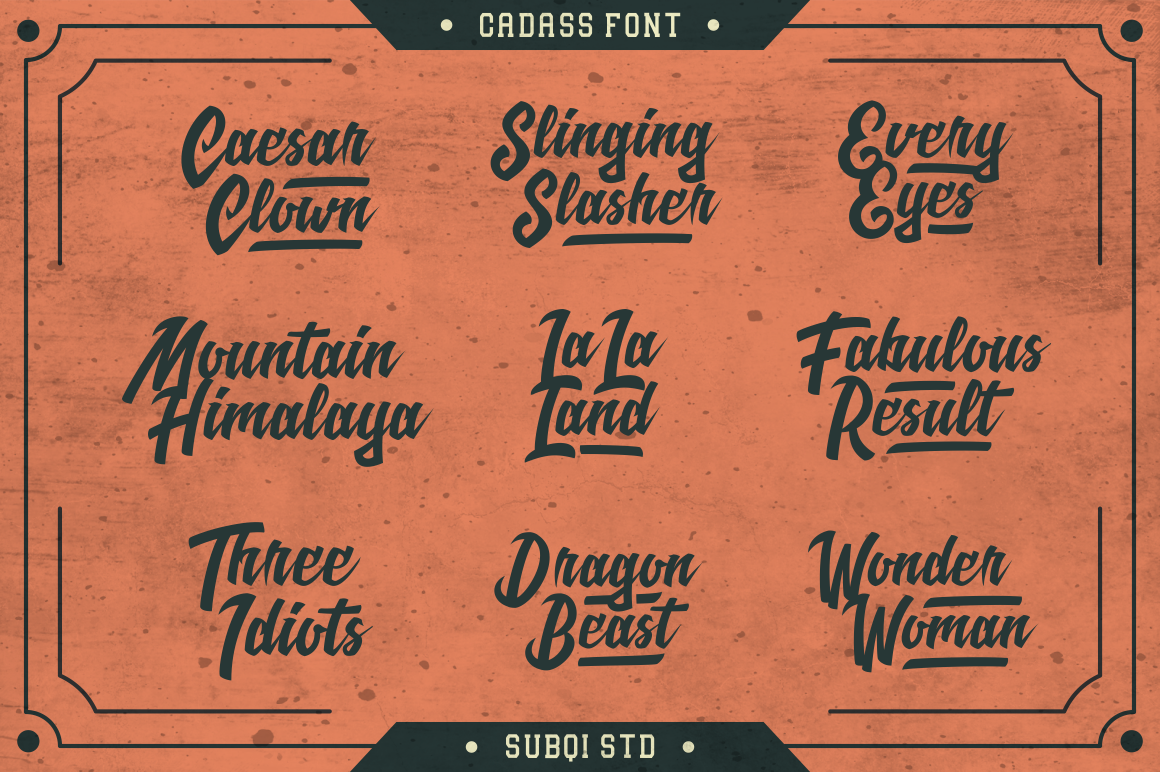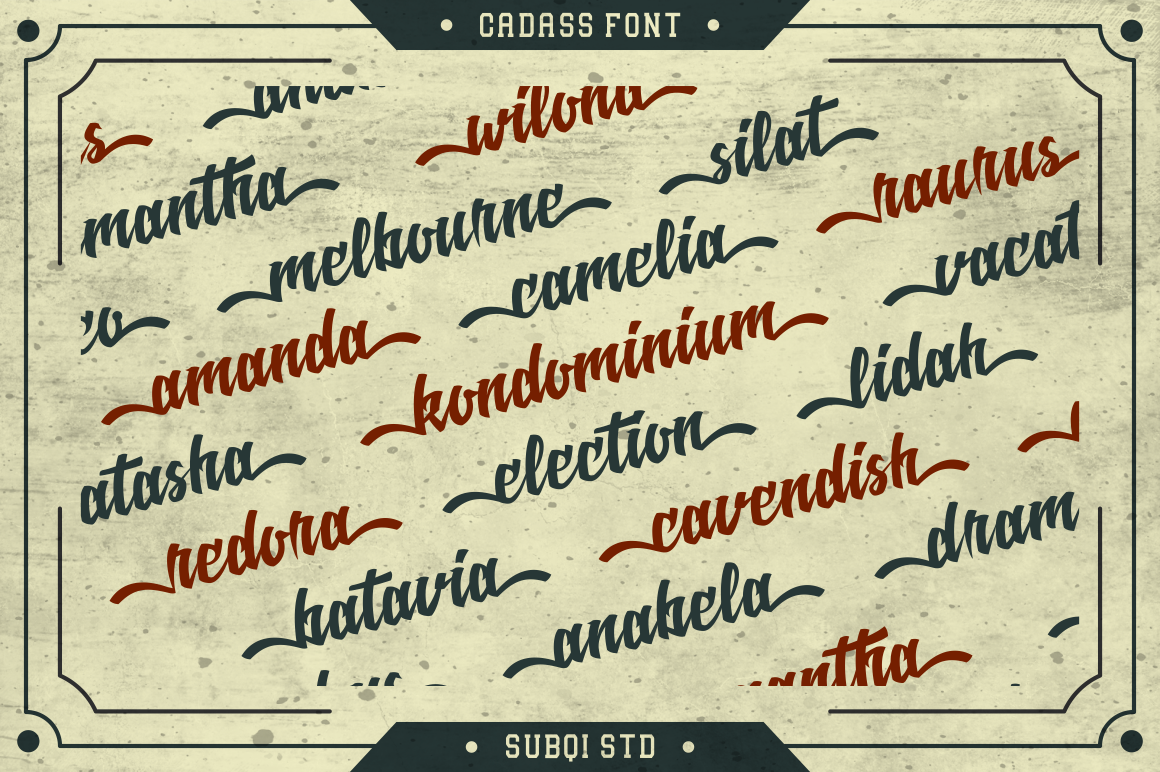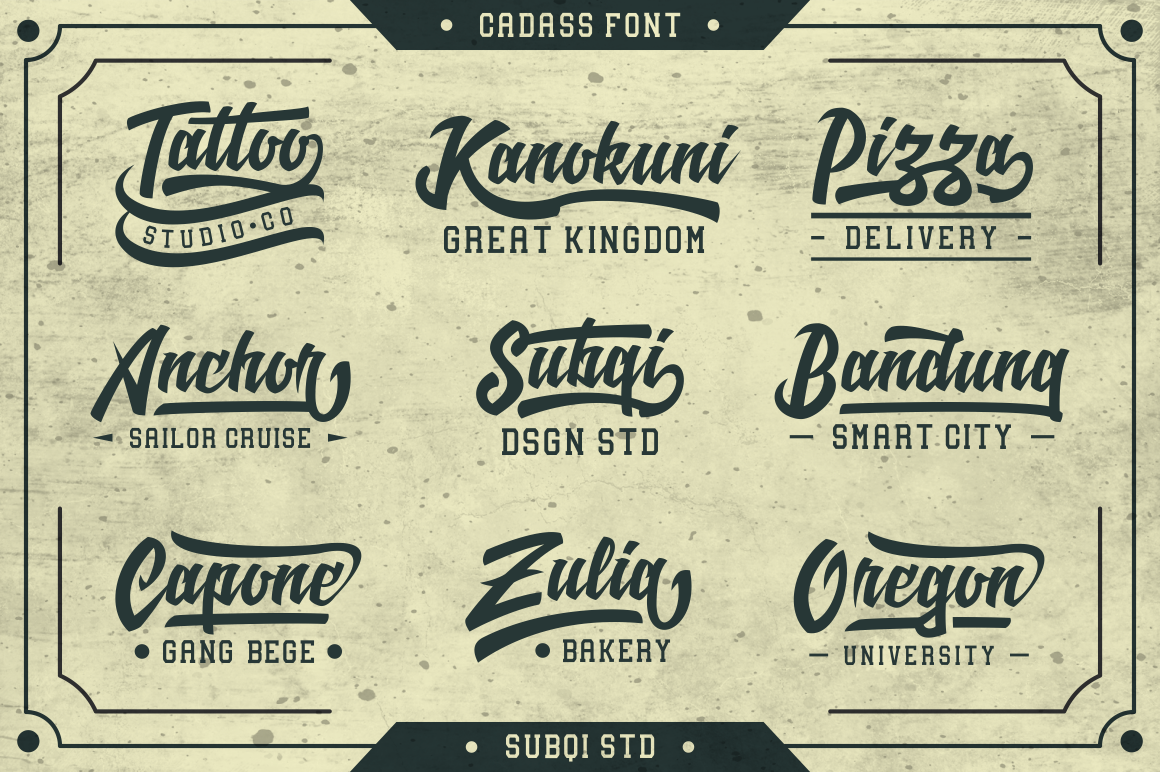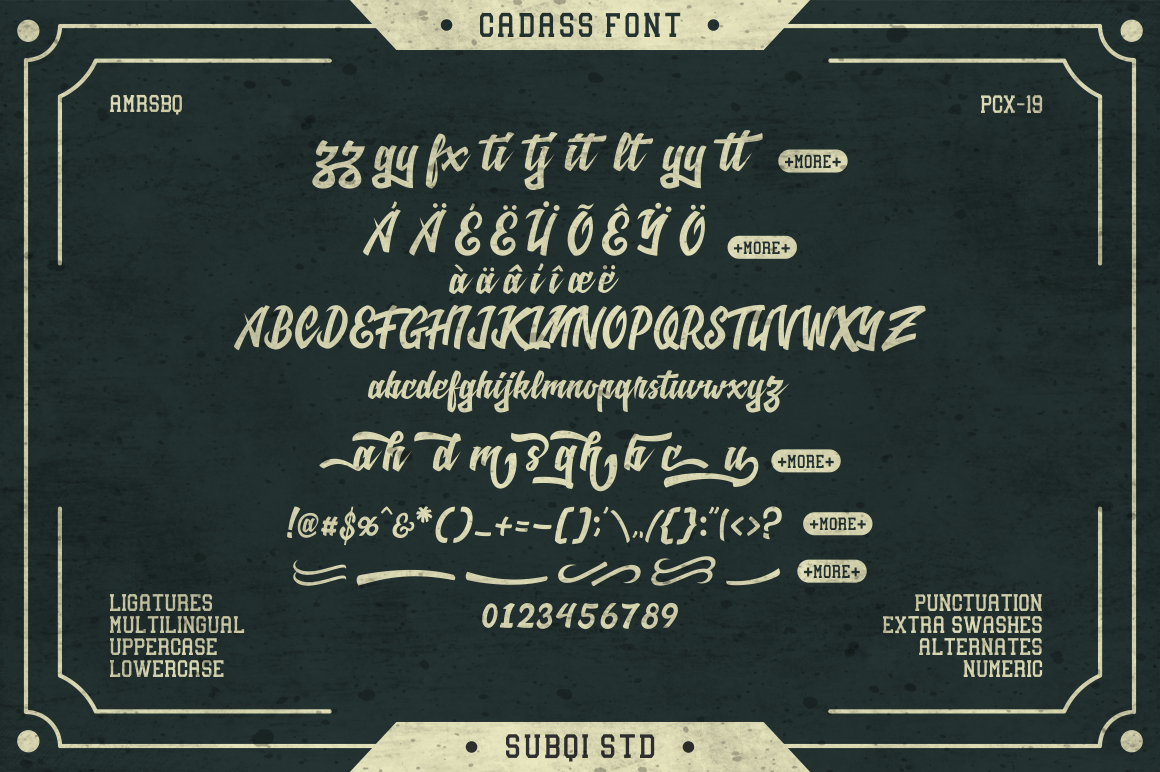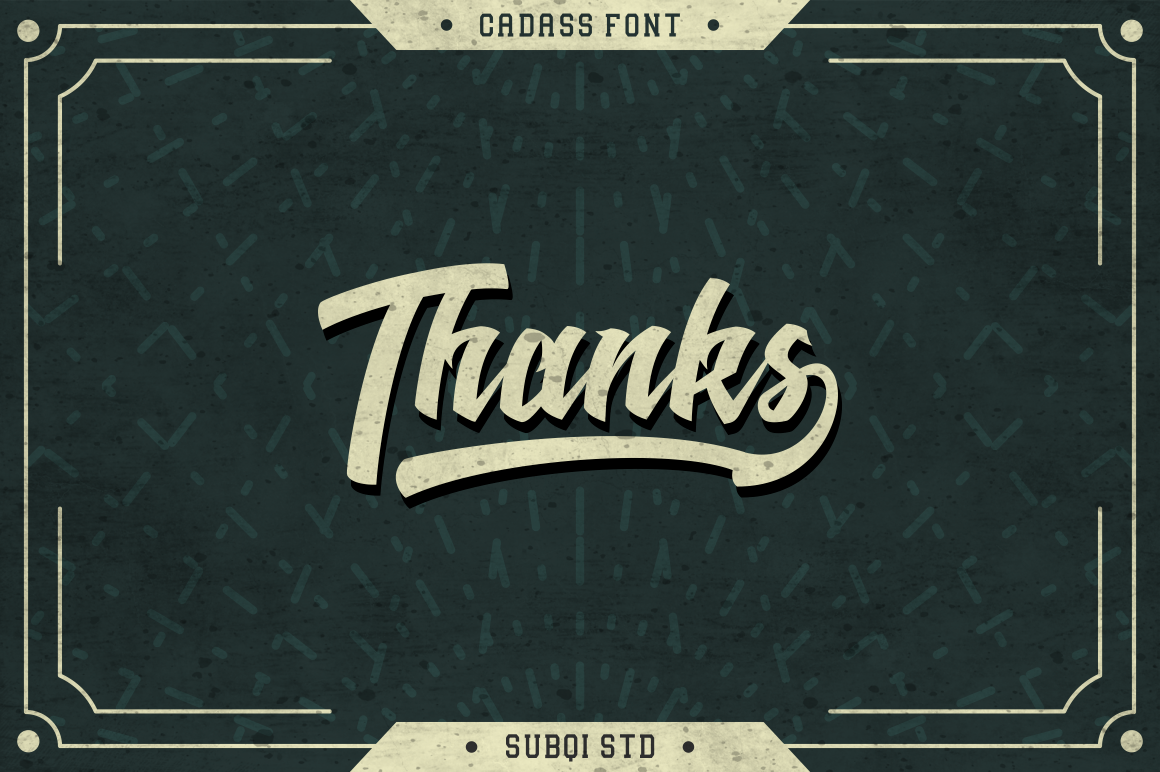
Cadass Font
Cadass is a stunning Script & Sans Serif combination.
It’s bold & daring and will allow you to add to add a classic vintage touch to your designs, but with a modern twist.
The Cadass font duo is perfect for logotype, label design, apparel and more.